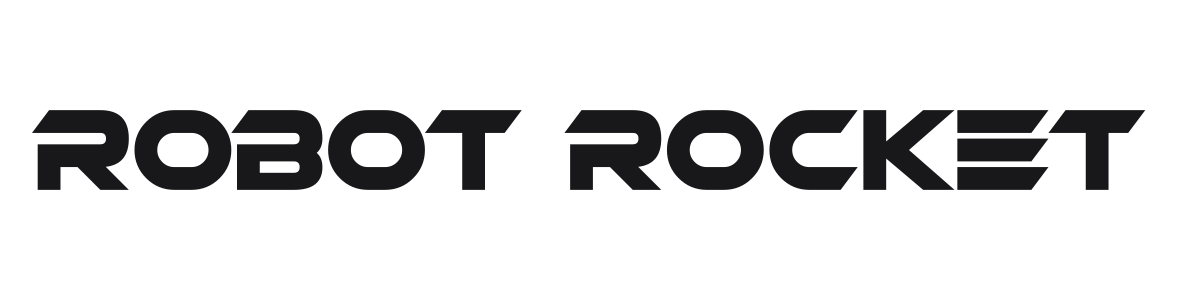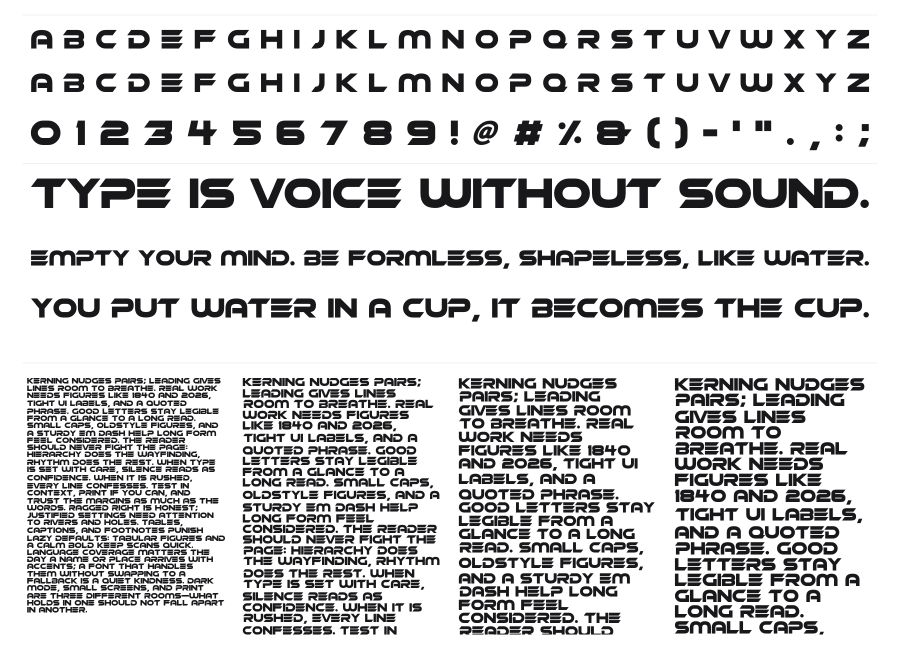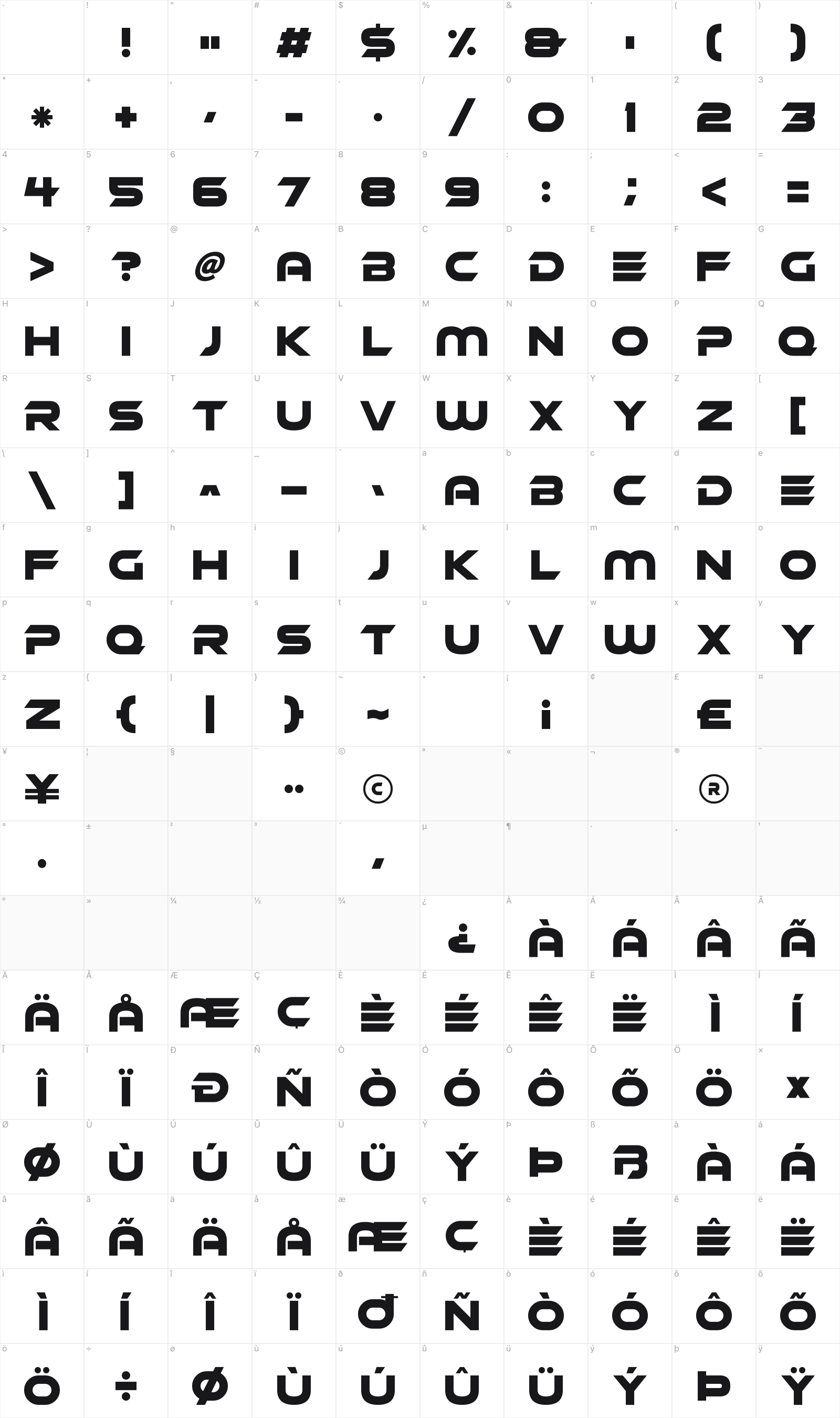
Robot Rocket
Robot Rocket is a bold, wide geometric sans with a heavy mechanical presence and sci-fi personality. The chunky letters use squared geometry softened by subtle interior cuts, giving the design a robotic, modular quality. It hits hard at headline sizes and suits gaming titles, action branding, and anything with an edge of the future.